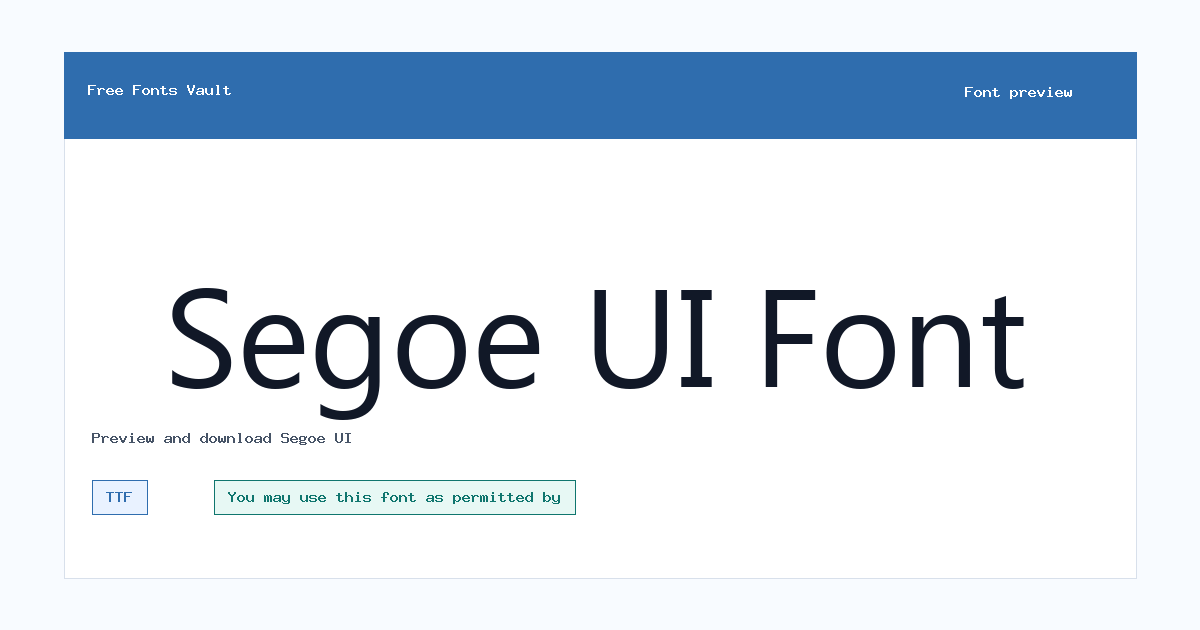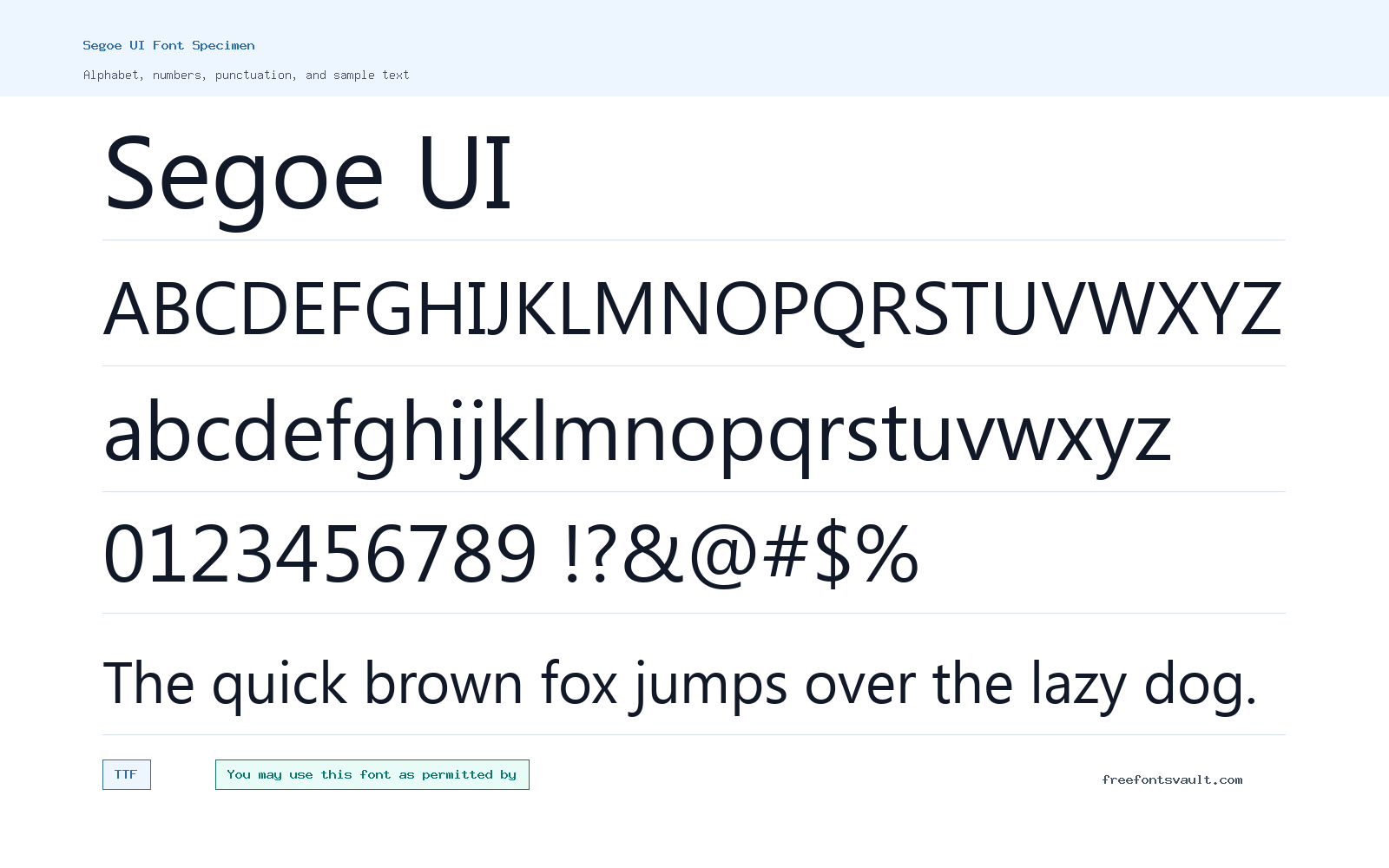
Segoe UI
Segoe UI Font
Segoe UI is a clean sans serif typeface associated with Microsoft interface typography. It is built for clear screen reading, making it useful for previews of app screens, dashboards, labels, and simple document layouts.
About Segoe UI
Segoe UI has an open, neutral look with letterforms that stay readable in short blocks of text. Microsoft describes it as especially clear for information shown on desktop, laptop, tablet, and phone screens, and also suitable for print. Its regular weight works well where the text should feel familiar, practical, and easy to scan rather than decorative.
Use the preview box to test real interface text: menu labels, sidebar items, settings screens, dialog titles, captions, and short paragraphs. Segoe UI is a good reference choice for Windows-style mockups and product documentation because it does not pull attention away from the content. For long editorial reading, compare it with a dedicated text face, and for strong branding work, test whether its system-font character feels too familiar.
• Clear sans serif design suited to screen text, labels, captions, subtitles, and short passages
• Windows-style UI mockups and app interface previews
• Dashboards, documentation pages, forms, settings panels, and clean readable layouts
For interface work, start with regular weight for most text and reserve stronger weights for headings or emphasis. Microsoft’s Windows typography guidance recommends keeping UI typography readable, using clear hierarchy, sentence case, and avoiding very small text sizes. If you need the newer Windows 11 system behavior, compare Segoe UI with Segoe UI Variable.
What is Segoe UI best used for?
It works best for clean screen typography such as app interfaces, labels, captions, menus, dashboards, forms, and documentation.
Is Segoe UI the same as Segoe UI Variable?
No. Microsoft describes Segoe UI Variable as the newer Windows system font that uses variable font technology. Segoe UI is the classic family used across Windows and Office products.